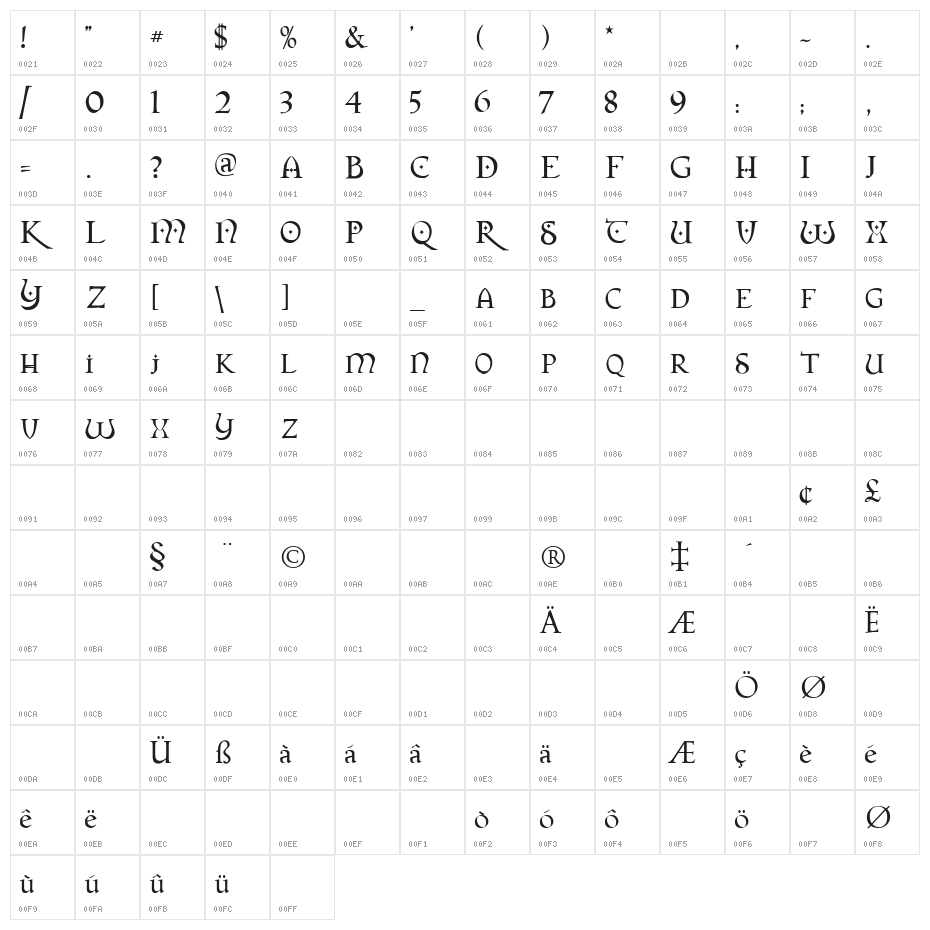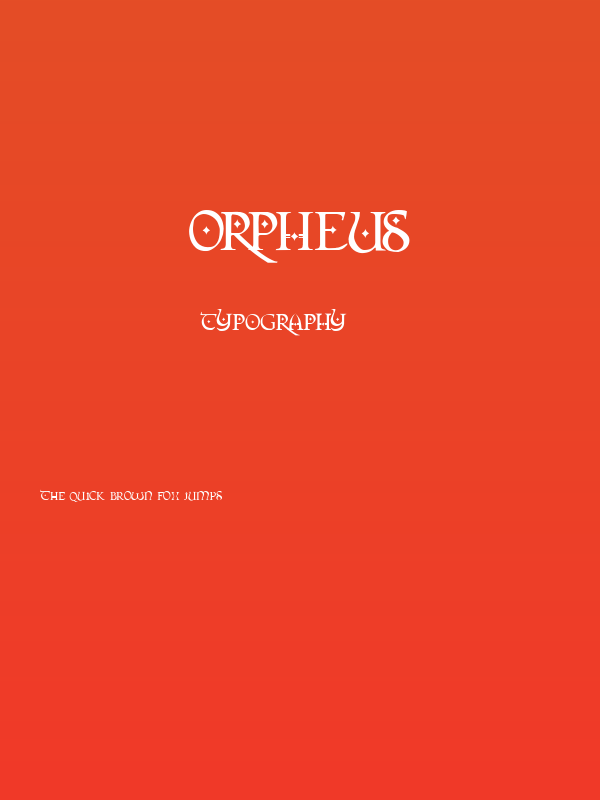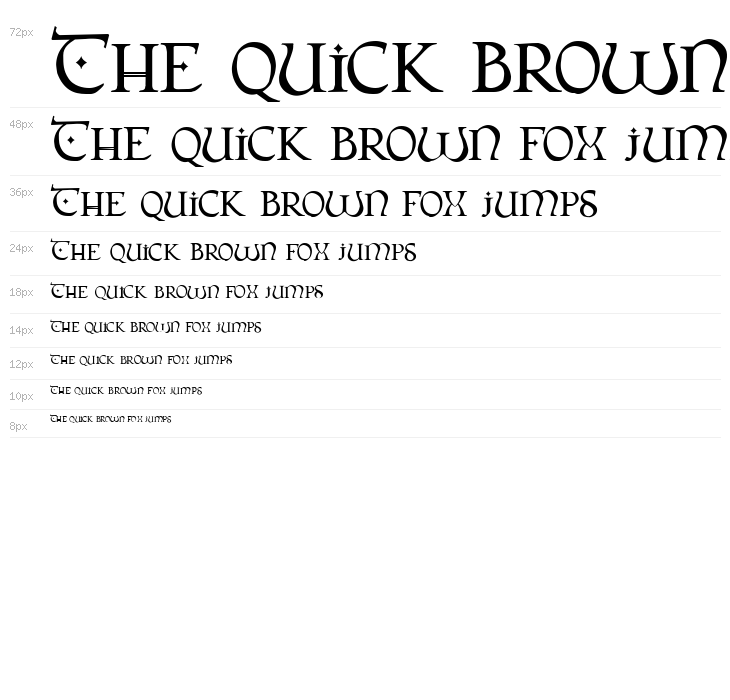
Orpheus Font
| Gesamtstil | Classic, Decorative |
| Anwendungsfall | Headlines, Logos, Invitations |
| Vorgeschlagene Projekte | Ideal for wedding invitations, historical-themed posters, book covers, and branding that requires a touch of elegance. |